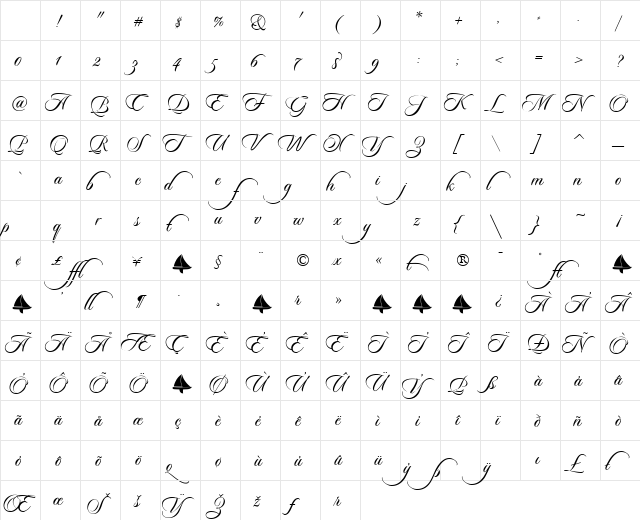
Sloop-ScriptThree (Less Slant) flows with the natural rhythm of handwritten lettering, making it ideal for designs that call for warmth and personal expression.
Font Pairing: Combine Sloop-ScriptThree (Less Slant) with a simple geometric sans for maximum contrast - the tension between flowing curves and clean structure is a classic typographic pairing.
Pro Tip: Use Sloop-ScriptThree (Less Slant) for short runs of text - names, titles, or taglines. Extended body copy in script faces tires the eye quickly.